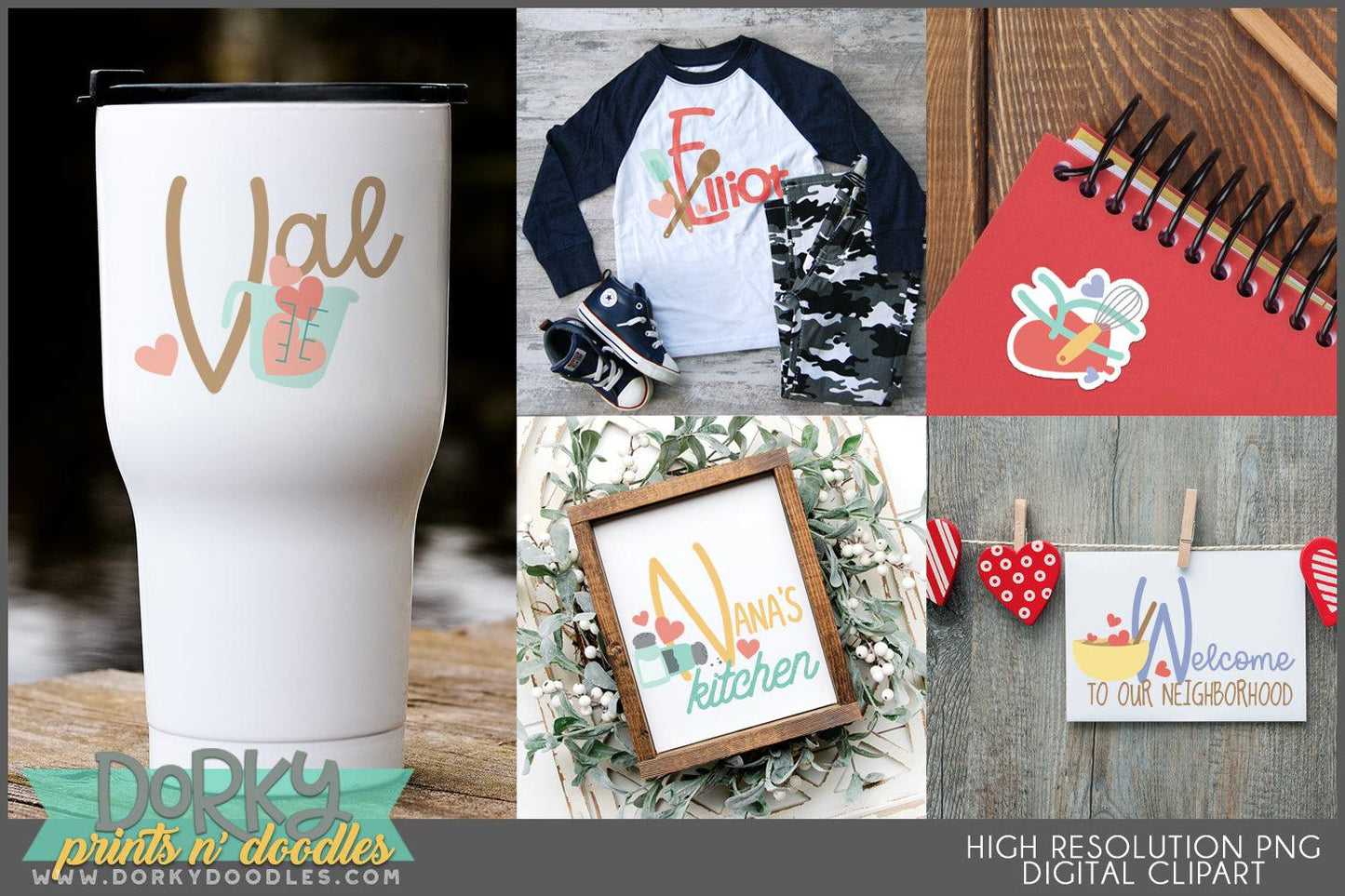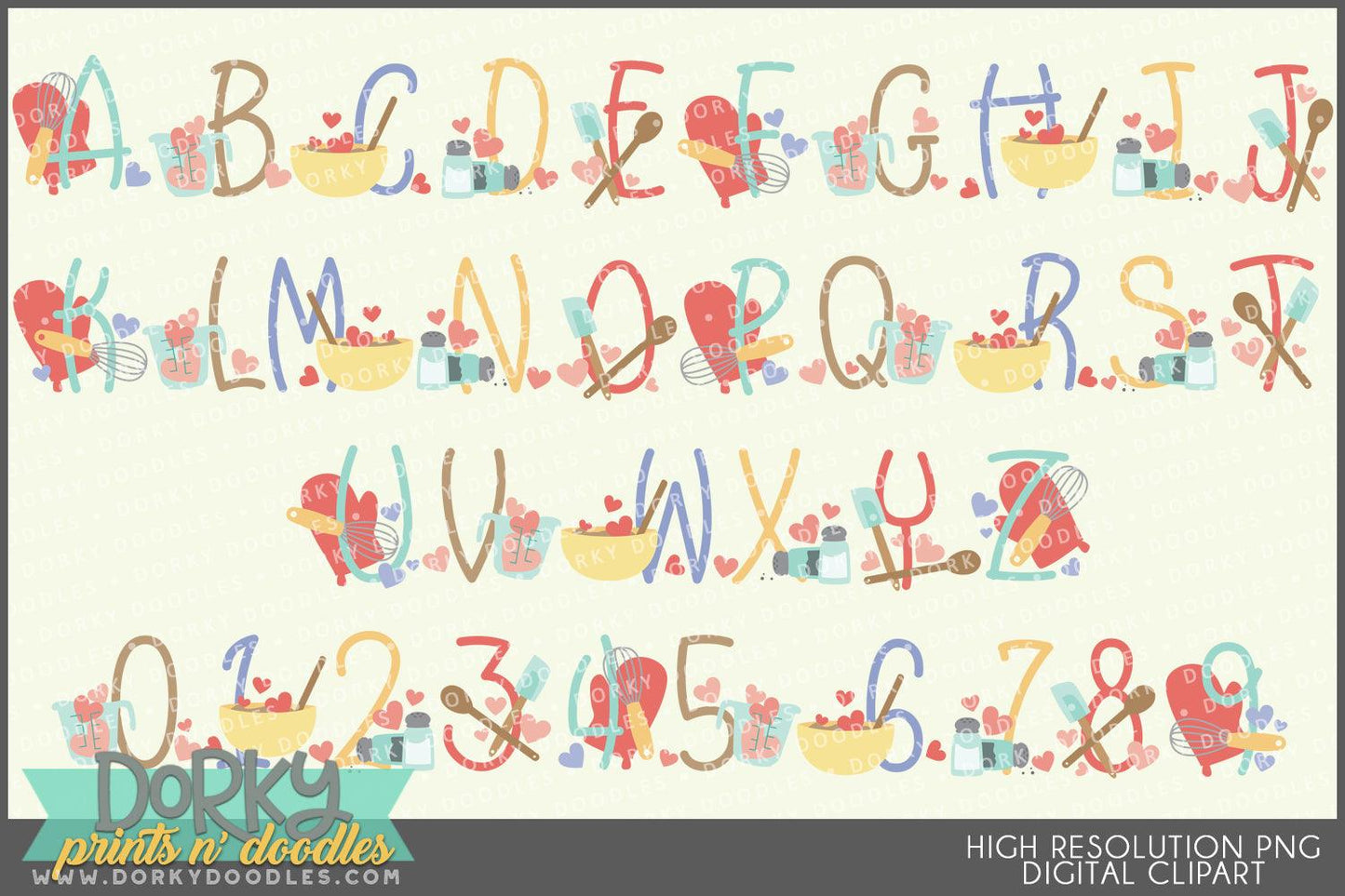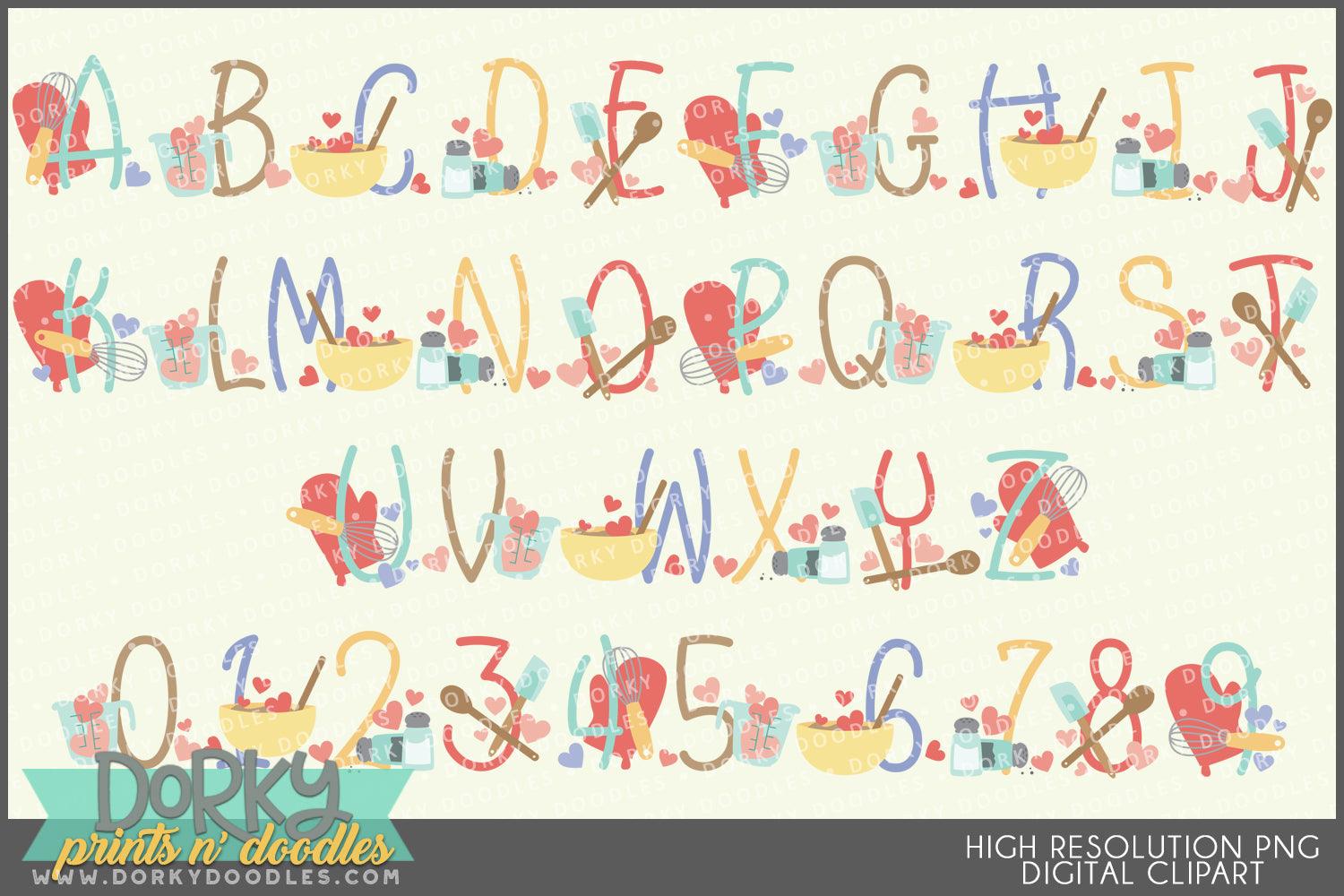
Kitchen and Baking Alphabet Clipart
These cute kitchen and baking alphabet clipart images look fabulous on cards, in scrapbooks, party invitations, planner stickers, sublimation projects, and decor! You will get 36 Digital Clip Art images in high resolution PNG format (they come as a ZIP file that you can download instantly once payment has cleared).
• the full alphabet and numbers 0-9 using spoons, whisks, spatulas, oven mitts, bowls, and hearts.